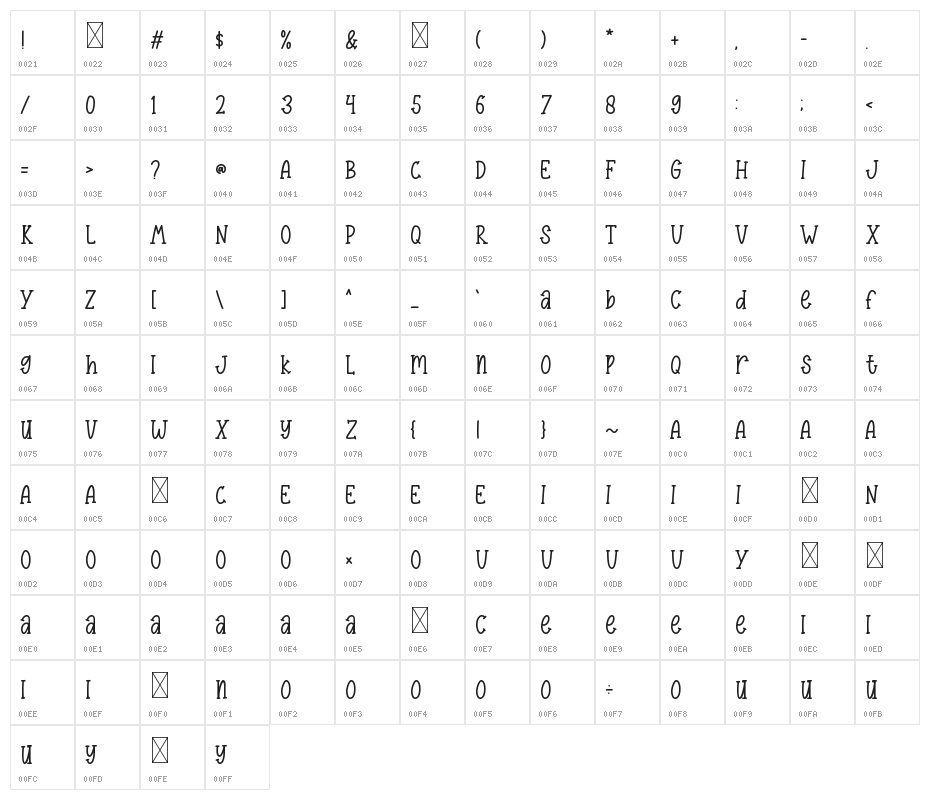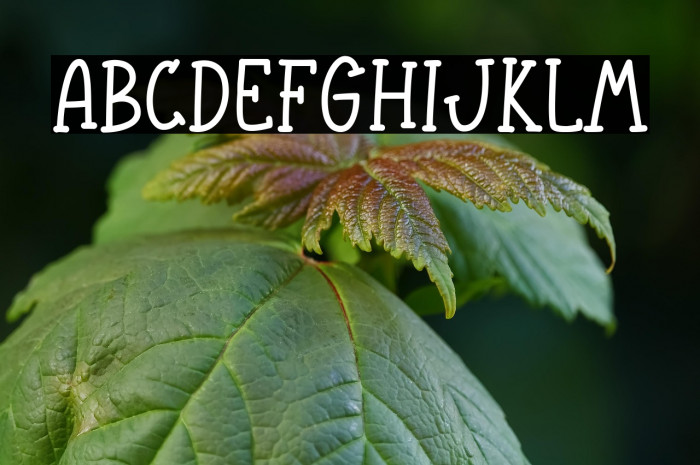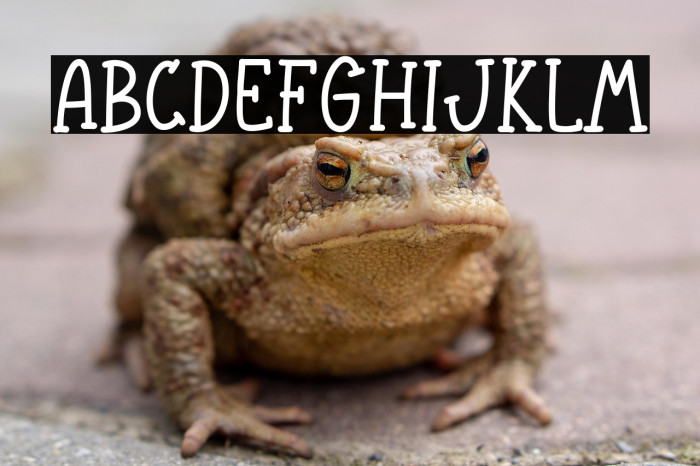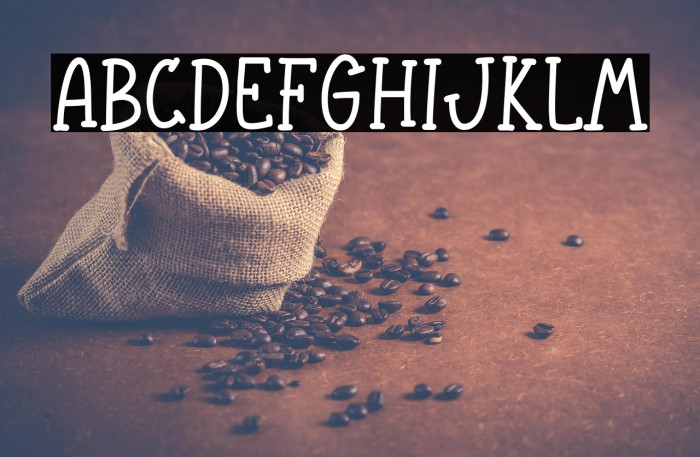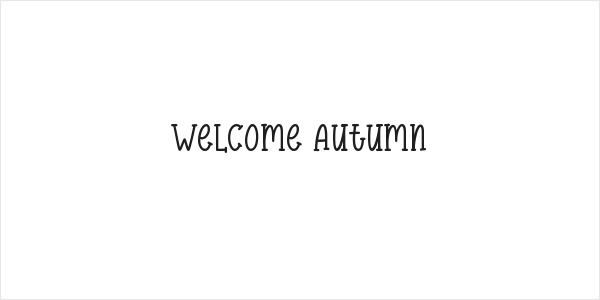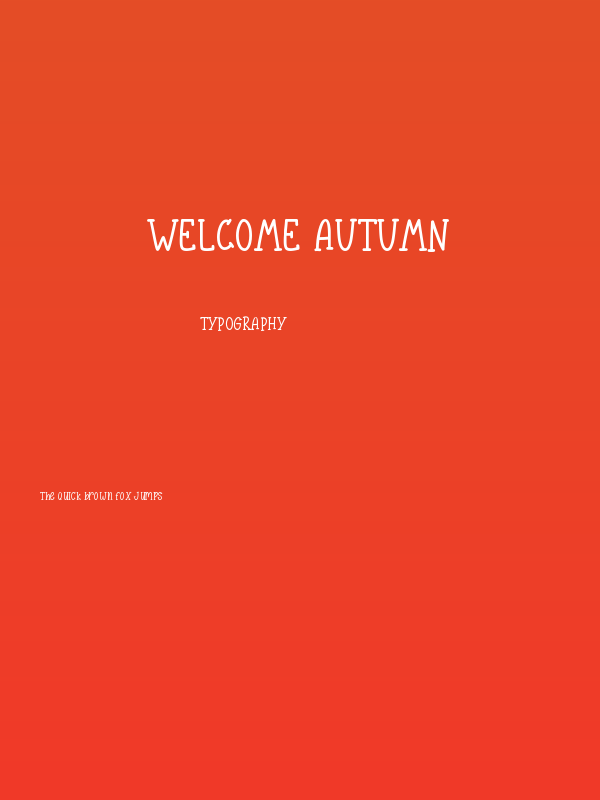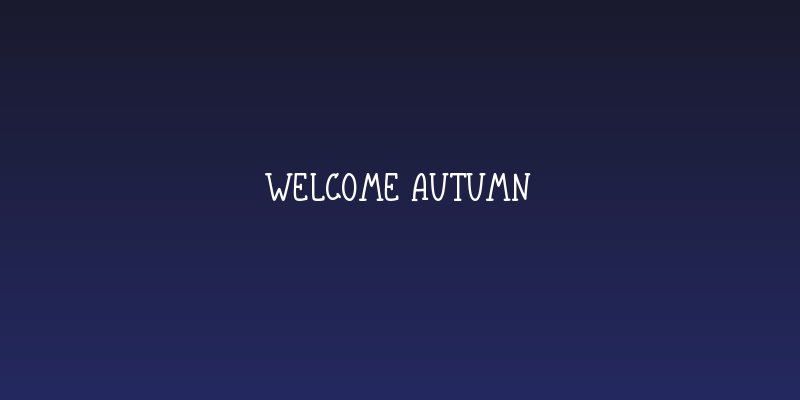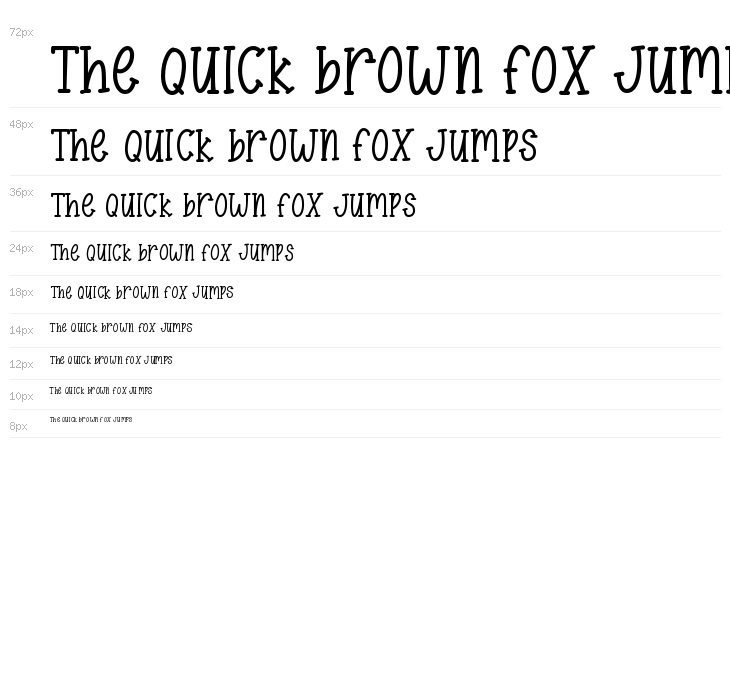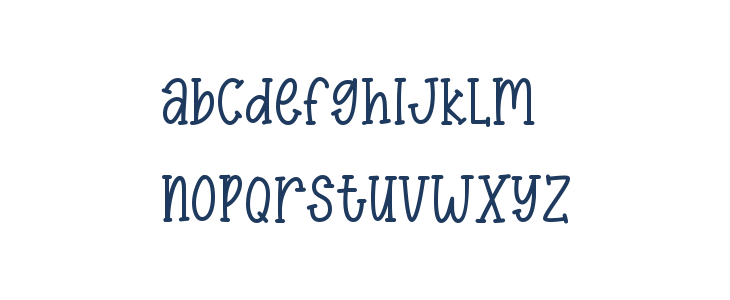
Welcome Autumn Font
Welcome Autumn Description
This font features a playful and whimsical style with a handwritten appearance. The characters have a slight slant, adding to the casual and informal feel. The strokes are consistent in thickness, providing a uniform look across all letters. The uppercase and lowercase letters maintain a cohesive design, with rounded edges and a friendly demeanor. The numerals and special characters follow the same stylistic cues, ensuring a harmonious overall appearance. This font is ideal for projects that require a touch of fun and creativity, such as greeting cards, invitations, or children's book covers.
| Proposed Projects | Ideal for greeting cards, invitations, children's book covers, and playful branding. |